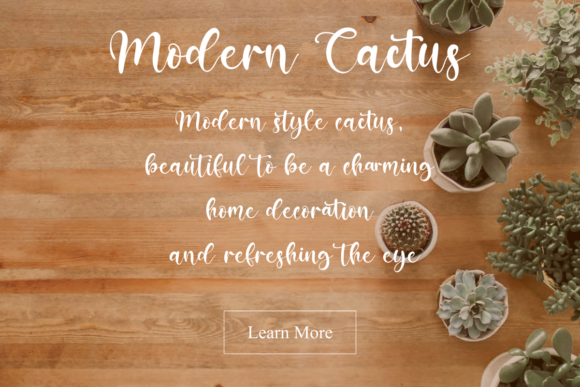
Envellope Font
Envellope is a modern and playful script font. It’s great for crafters and designers. It is suitable for any branding project like logos, t-shirt printing, sport designs, and more. It will look outstanding in a wide range of contexts.